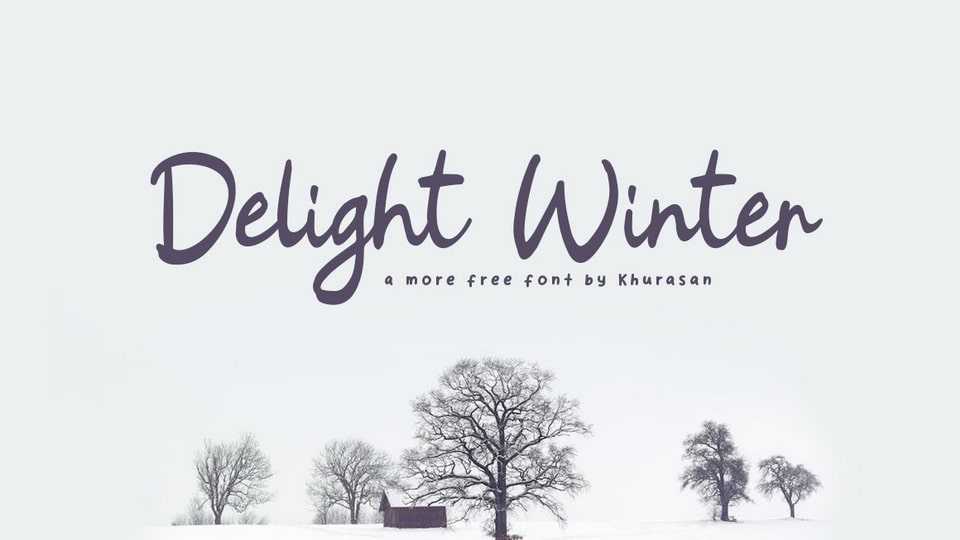
Download Delight Winter font, a natural and flowing handwritten script typeface. Delight Winter is perfect for posters, logos, magazines, book covers, banners, and many more.